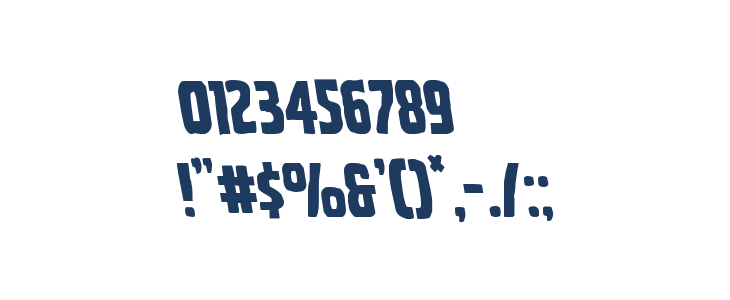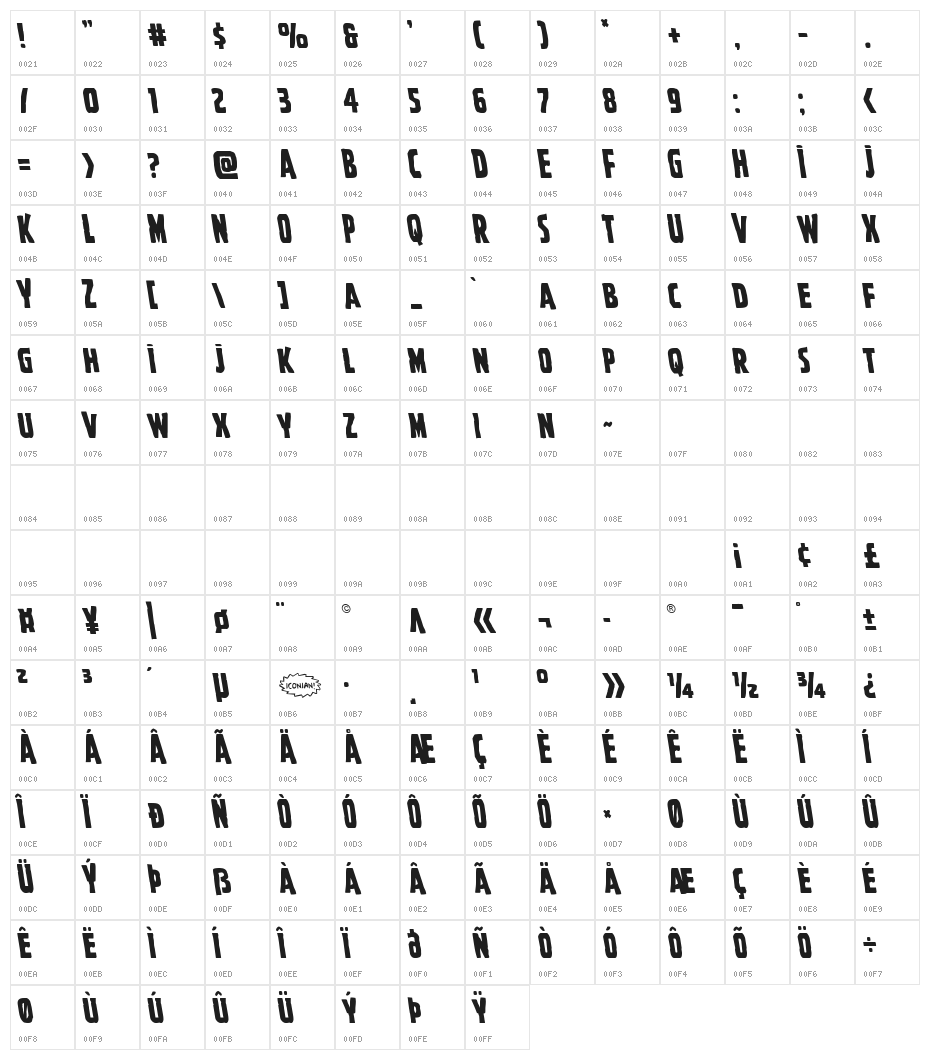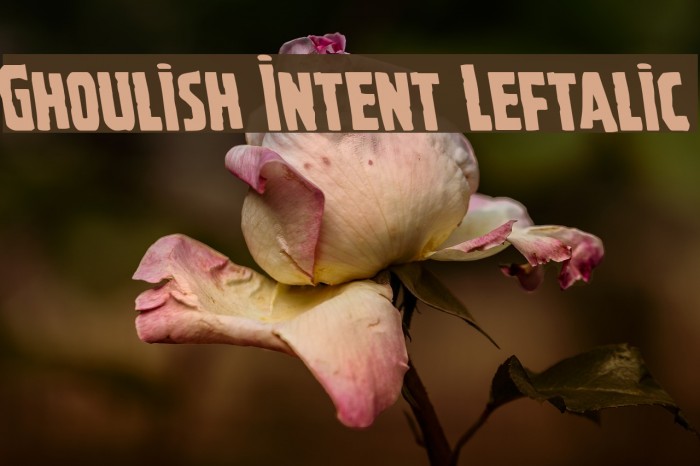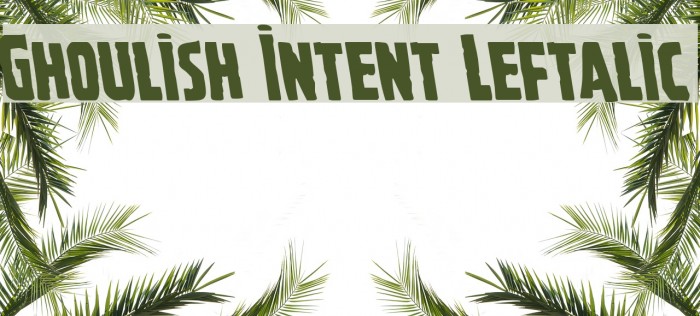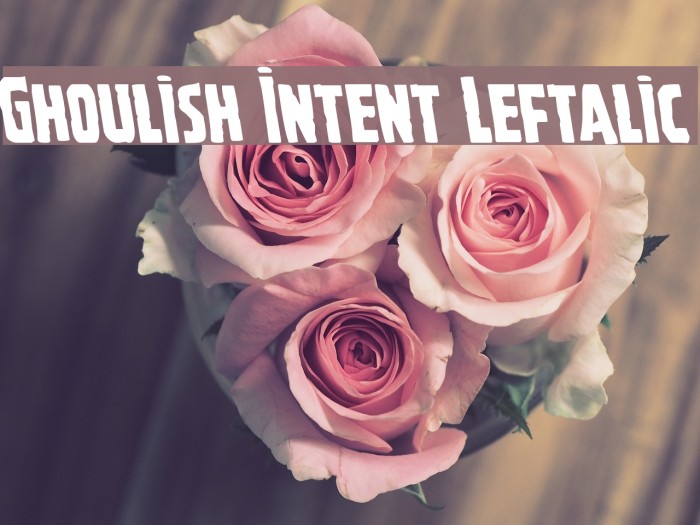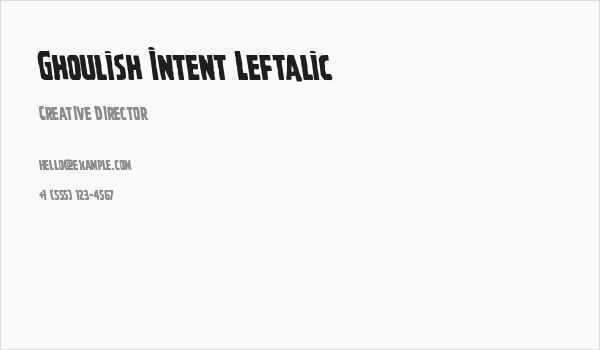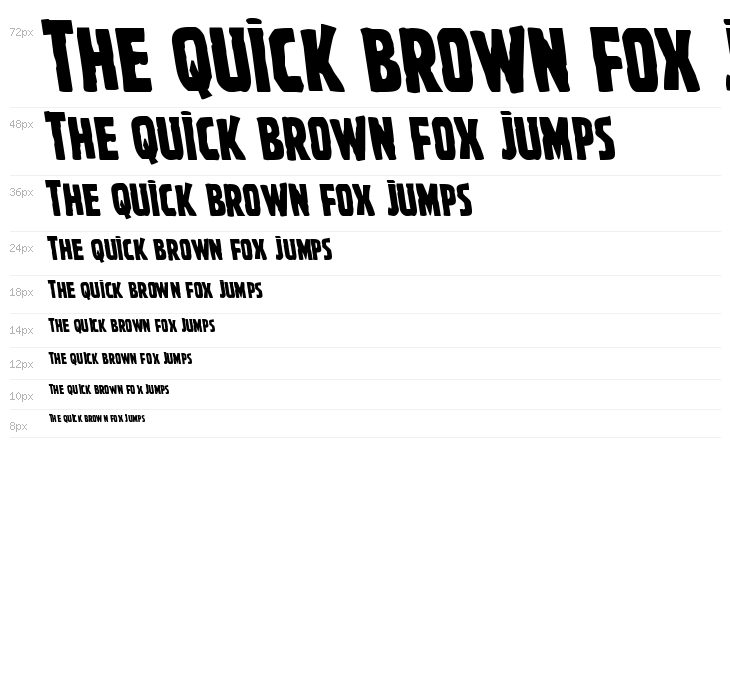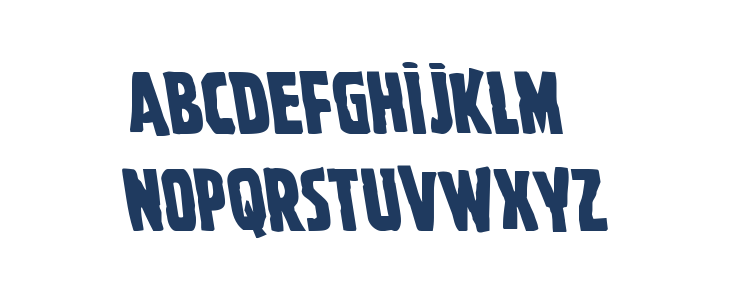
Ghoulish Intent Leftalic Font
Ghoulish Intent Leftalic Description
This font features a bold and dynamic design with a slightly distorted and irregular appearance, giving it a playful yet edgy feel. The characters are thick and robust, with a noticeable leftward slant, adding a sense of movement and energy. The uppercase and lowercase letters maintain a consistent style, with unique shapes that make each character stand out. The numbers and special characters follow the same bold and quirky design, ensuring a cohesive look across all text elements. This font's distinctive style makes it ideal for creative and unconventional projects.
| Proposed Projects | Perfect for Halloween-themed designs, posters, album covers, and any project requiring a bold, unconventional typeface. |